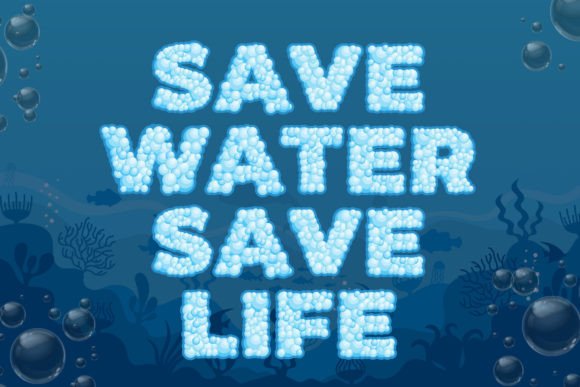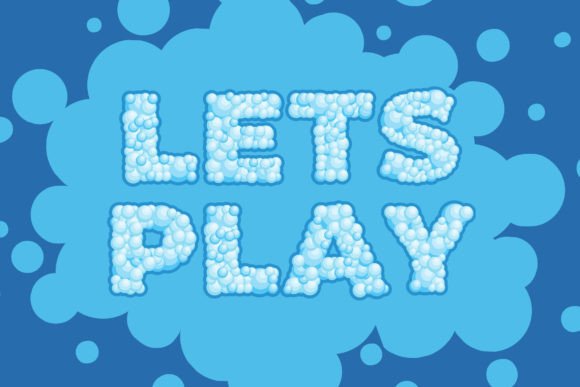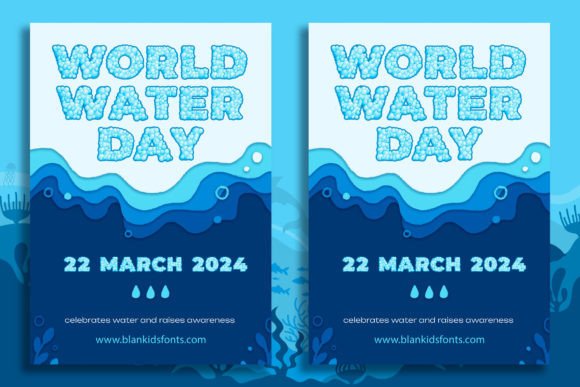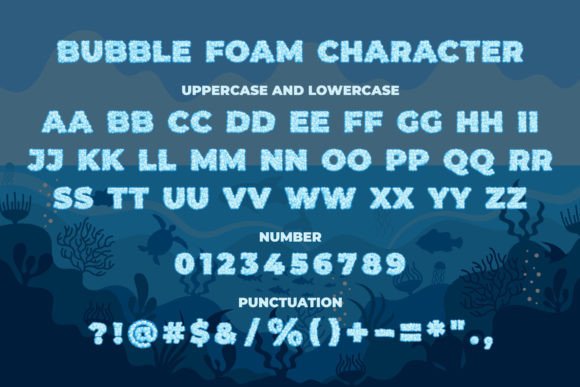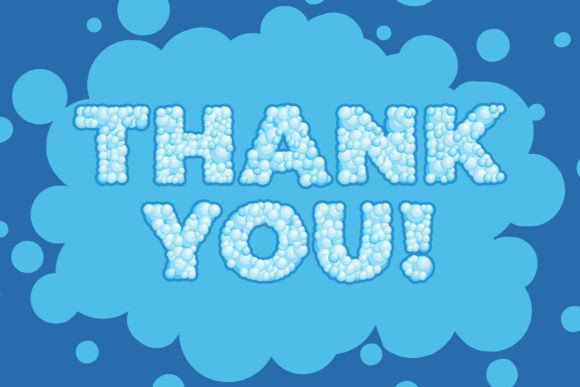
Creating a Playful Design: The Magic of Bubble Foam Font
Have you ever stared at a blank page, pencil in hand, waiting for the perfect idea to strike? It’s a feeling every designer knows well. And sometimes, all it takes is one spark to set off a chain reaction of creativity. For us, that spark was the discovery of the Bubble Foam Font – an SVG font that brings a breath of fresh air to typography.
This charming font is the perfect companion for designers looking to add a playful twist to their work. With its bubbly, whimsical style, Bubble Foam Font is sure to bring a smile to your client’s face. And let’s be honest, who wouldn’t want that? Whether you’re working on a children’s book, a fun ad campaign, or a social media graphic, this font is a valuable addition to your design toolkit.
Bubble Foam Font Key Features
- Unique Characteristics: The Bubble Foam font features a playful, bubbly design with rounded edges, giving it a fun and whimsical feel.
Bubble Foam Font Review
Overall, I’d say the Bubble Foam Font is a unique and fun addition to any design project. ✨ The font’s playful, bubbly feel is sure to bring a smile to your viewers’ faces, making it perfect for kids’ products, party invitations, and other lighthearted applications. ✨ The font is also highly customizable, allowing you to adjust the size, color, and even add special effects to really make it pop.
However, there are a few limitations to consider. ⚠️ For one, the font can be a bit too “in-your-face” for more formal or professional projects. ⚠️ Additionally, the font’s complexity can make it difficult to pair well with other fonts, which may limit its use in more complex designs.
- Unique, playful design
- Perfect for kids’ products, party invitations, and other lighthearted applications
- Can be difficult to pair well with other fonts
- May be too “in-your-face” for formal or professional projects
Overall, I’d give the Bubble Foam Font 4 out of 5 stars. While it has its limitations, its unique design and high level of customizability make it a great choice for the right project. Just be sure to use it wisely and consider its potential limitations when designing with it.
Bubble Foam Font: A Practical Application Guide
For best results, use the Bubble Foam Font in bold or italic styles to emphasize text.
1. Social media graphics and ads.
2. Party invitations and decorations.
3. Food and beverage branding.